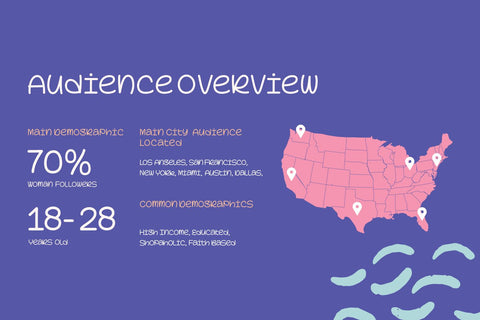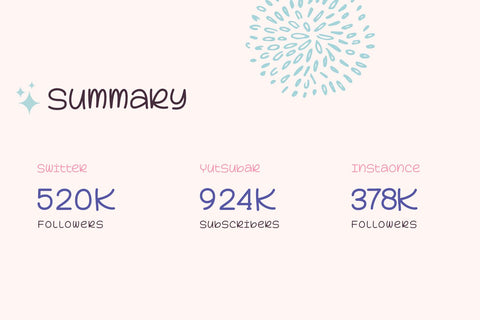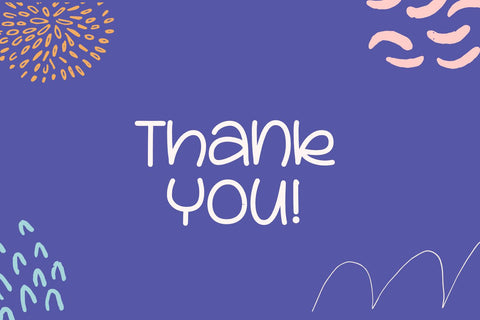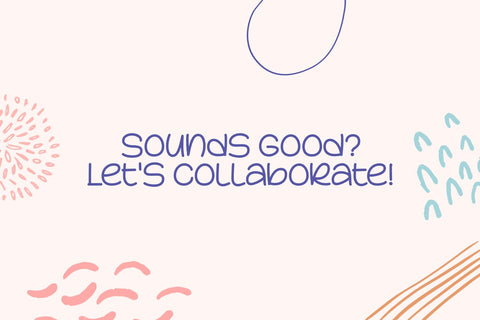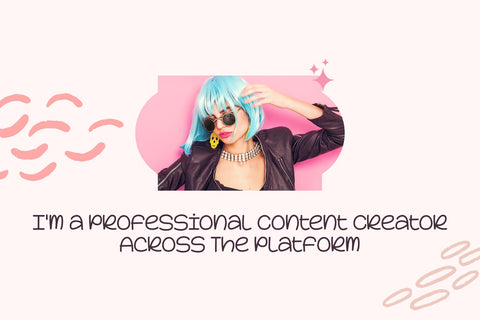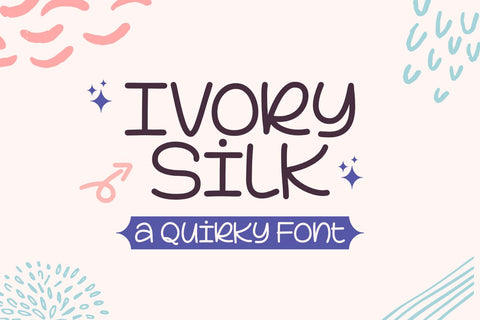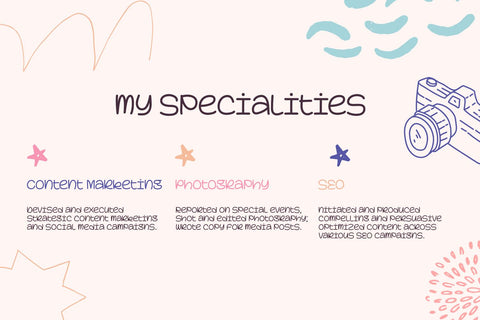
Ivory Silk - a Quirky Script Font
Ivory Silk is a simple, quirky and adaptable handwritten font. Its informal style and casual vibe will make this font a go-to choice for each of the creations that require a relaxed touch.